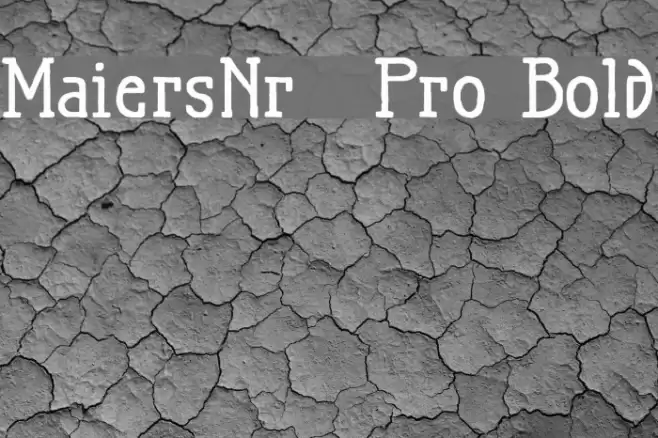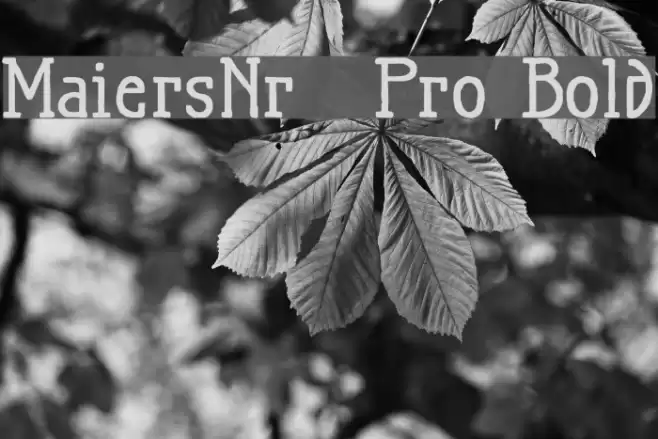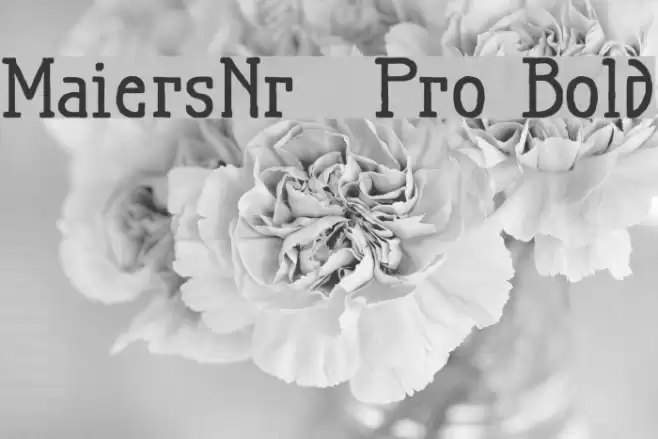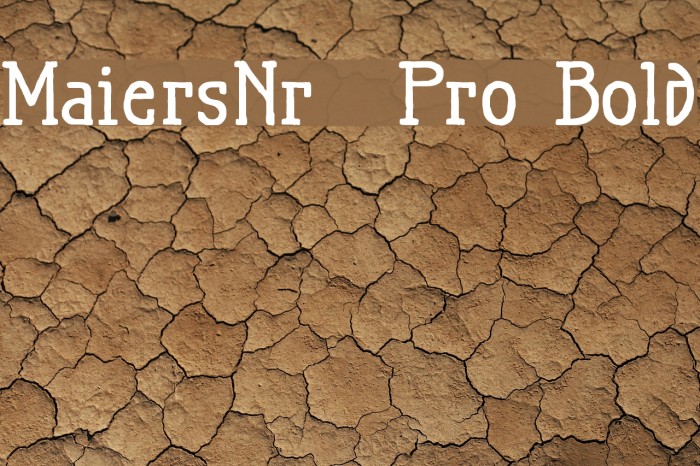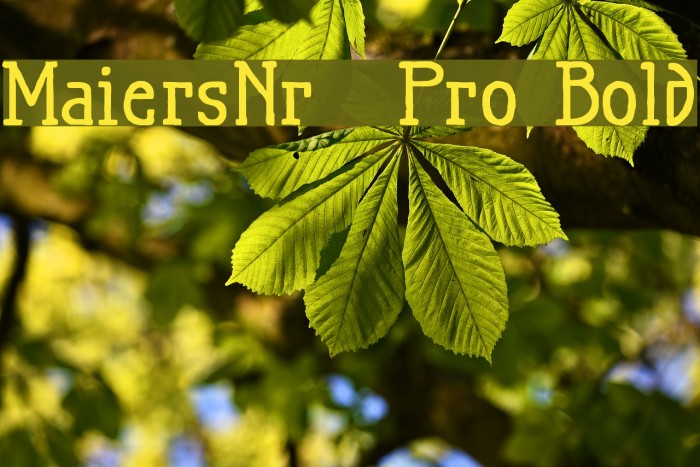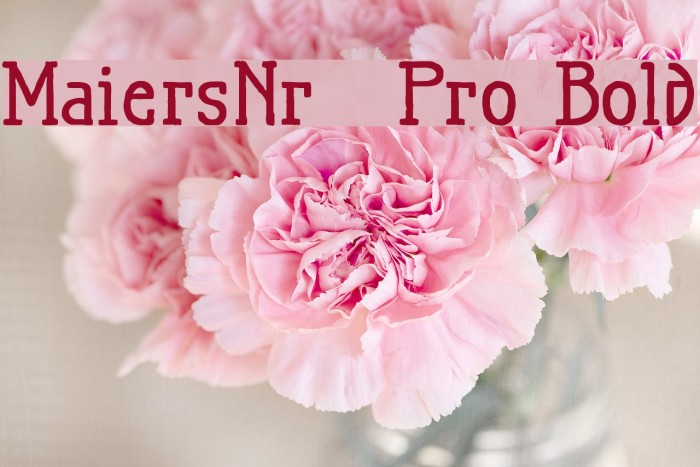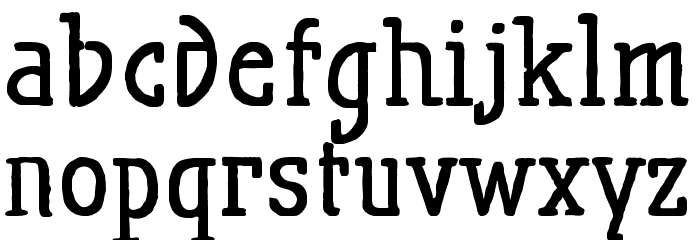
MaiersNr.21Pro-Bold Font
MaiersNr.21Pro-Bold Description
This font features a bold and distinctive style with a strong presence. The uppercase letters are characterized by their unique, slightly curved serifs and a robust structure that gives them a commanding appearance. The lowercase letters maintain a consistent style, with a playful yet sophisticated look. The numerals are clear and bold, ensuring readability. Special characters are designed to match the overall aesthetic, providing a cohesive look across all glyphs. This font's design is both artistic and functional, making it suitable for a variety of creative applications.
A bold, artistic serif font with unique curves and strong presence from Uncategorized fonts.
- Proposed Projects: Ideal for branding, poster design, book covers, and artistic projects requiring a bold statement.